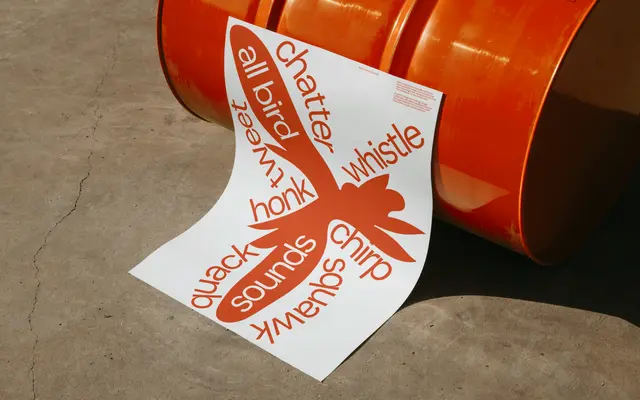
MT Beak Sans
Modern Type · Ana Andreeva · 2024
A neo-grotesque with beak-shaped ink traps threaded throughout its forms, designed by Ana Andreeva for everyday use.
Designed by Ana Andreeva with production by Dalton Bruyns, this neo-grotesque uses beak-like ink traps as a consistent structural motif, adding contrast and visual interest without departing from the genre's neutral character. Released in version 0.1 in 2024, the family currently consists of a single Regular weight, with a companion display family, MT Beak, planned for future release. Early-stage but shows a clear design rationale.
Described explicitly as a neo-grotesque by the foundry, with ink traps as a distinguishing detail. The single regular weight and clean structure confirm a neo-grotesque classification.